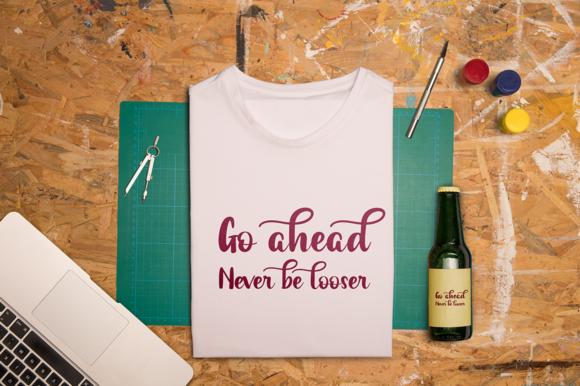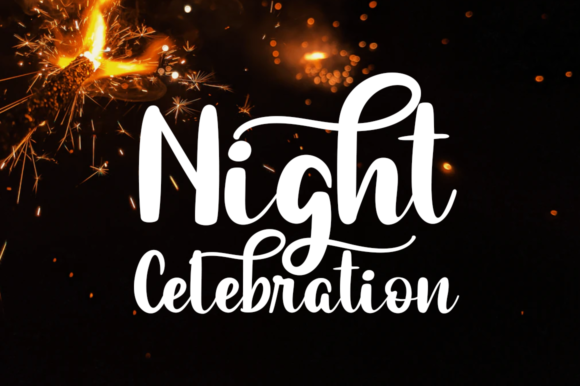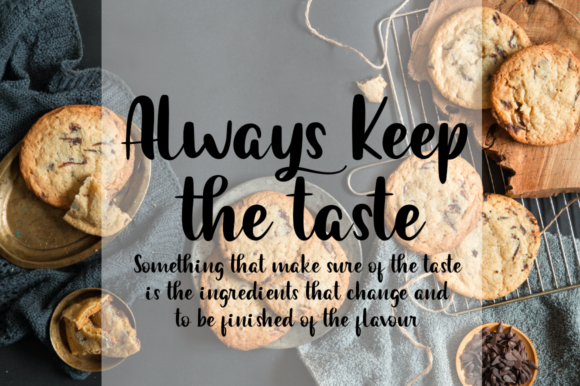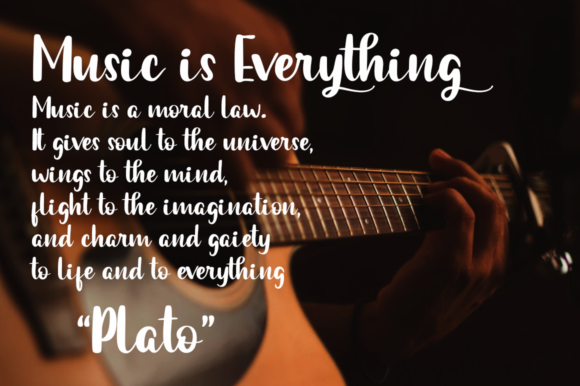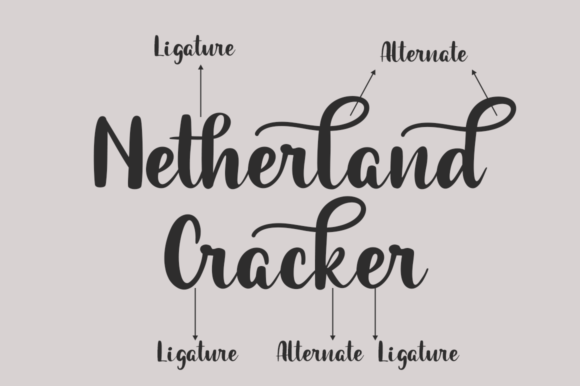
Introduction to Netherland Cracker Font
Have you ever found yourself stuck in a design rut, struggling to bring your creative vision to life? Maybe you’re working on a project that requires a touch of elegance and sophistication, but your usual font choices just aren’t cutting it. That’s where the Netherland Cracker Font comes in – a stunning handwritten font that’s sure to elevate your design to the next level.
With its varying baseline, smooth lines, and gorgeous glyphs, the Netherland Cracker Font is a design resource that’s both high quality and versatile. Whether you’re working on a creative project that requires a transparent background or need a font that can handle a free download, this font has got you covered.
As a valuable asset for designers, the Netherland Cracker Font offers stunning alternates and a unique charm that’s hard to find in other fonts. Its elegant style makes it perfect for a wide range of applications, from wedding invitations to branding materials, and everything in between.
Key Features of Netherland Cracker Font
- High-quality design resource ideal for creative projects, offering a unique and distinctive look.
- Designed with a modern aesthetic, perfect for adding a touch of sophistication to any creative project.
Honest Review: Netherland Cracker Font
I recently had the chance to experiment with the Netherland Cracker Font, and I must say it’s been a delight to work with. As a design resource, it offers a unique blend of modernity and playfulness that can elevate any creative project. The high quality of the font is immediately noticeable, with crisp lines and a clear, readable typeface.
- Unique and modern design
- High quality and crisp lines
- May not be suitable for formal or professional designs
- Limited character set, may not support all languages
Overall, I’m impressed with the Netherland Cracker Font and would recommend it to designers looking for a creative and modern typeface. While it may have some limitations, its unique design and high quality make it a valuable addition to any design arsenal. ✨”
Tips for Getting the Most Out of Netherland Cracker Font
For the best results, use the Netherland Cracker Font with a transparent background to create a clean and modern look. You can also experiment with different font sizes and styles to add visual interest to your design.
The Netherland Cracker Font is perfect for a variety of creative projects, including logos, social media graphics, presentations, reports, and more. Its high-quality design and transparent background make it a valuable resource for designers and artists of all levels.